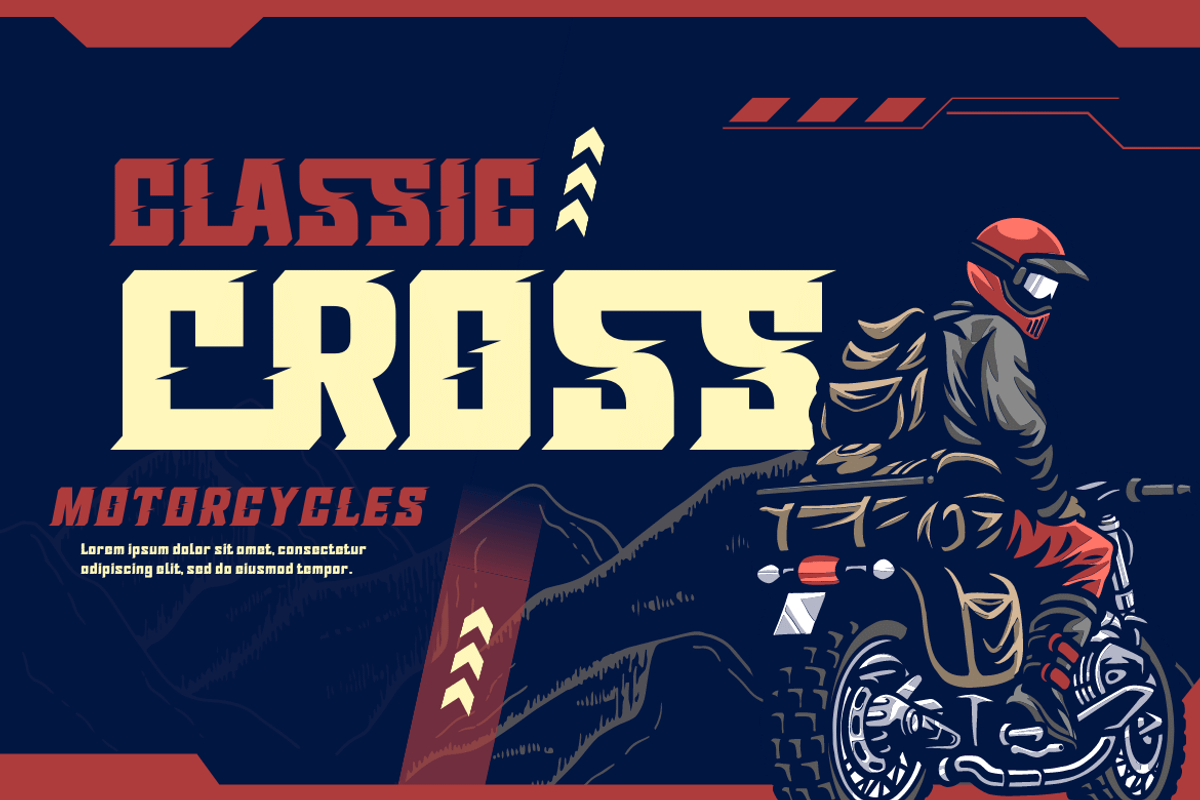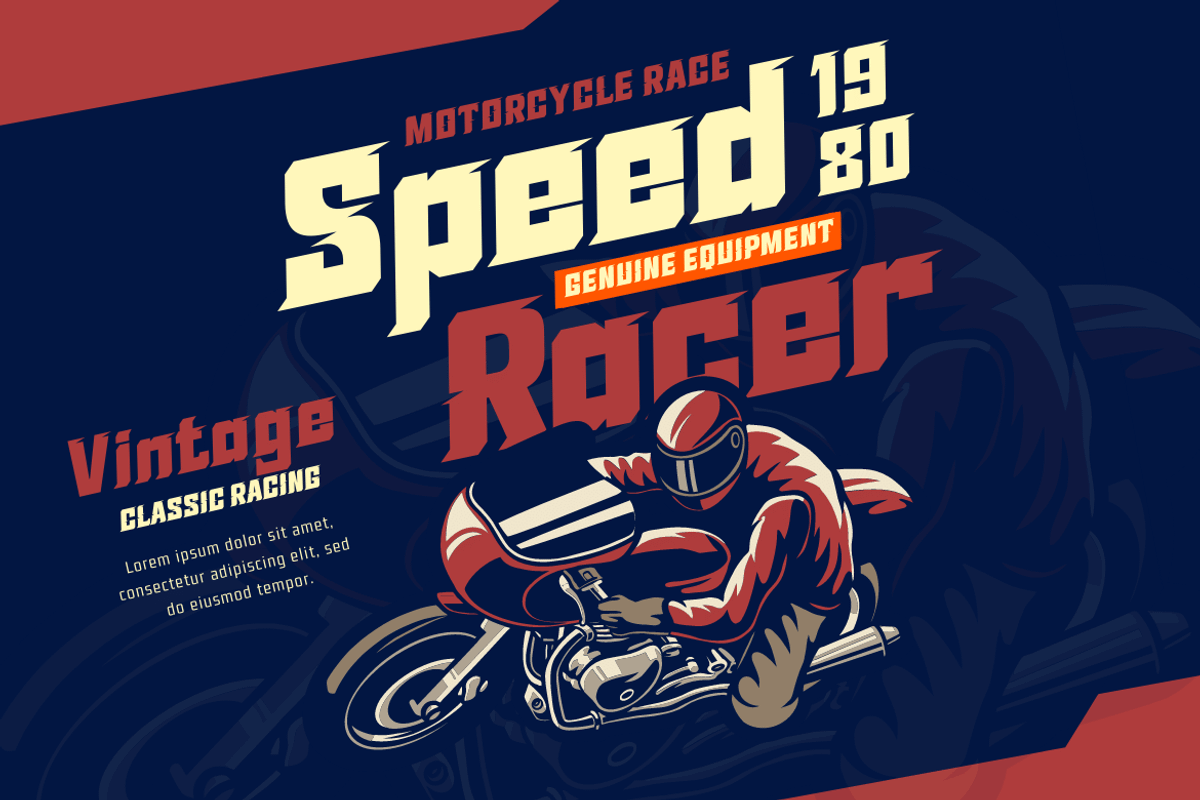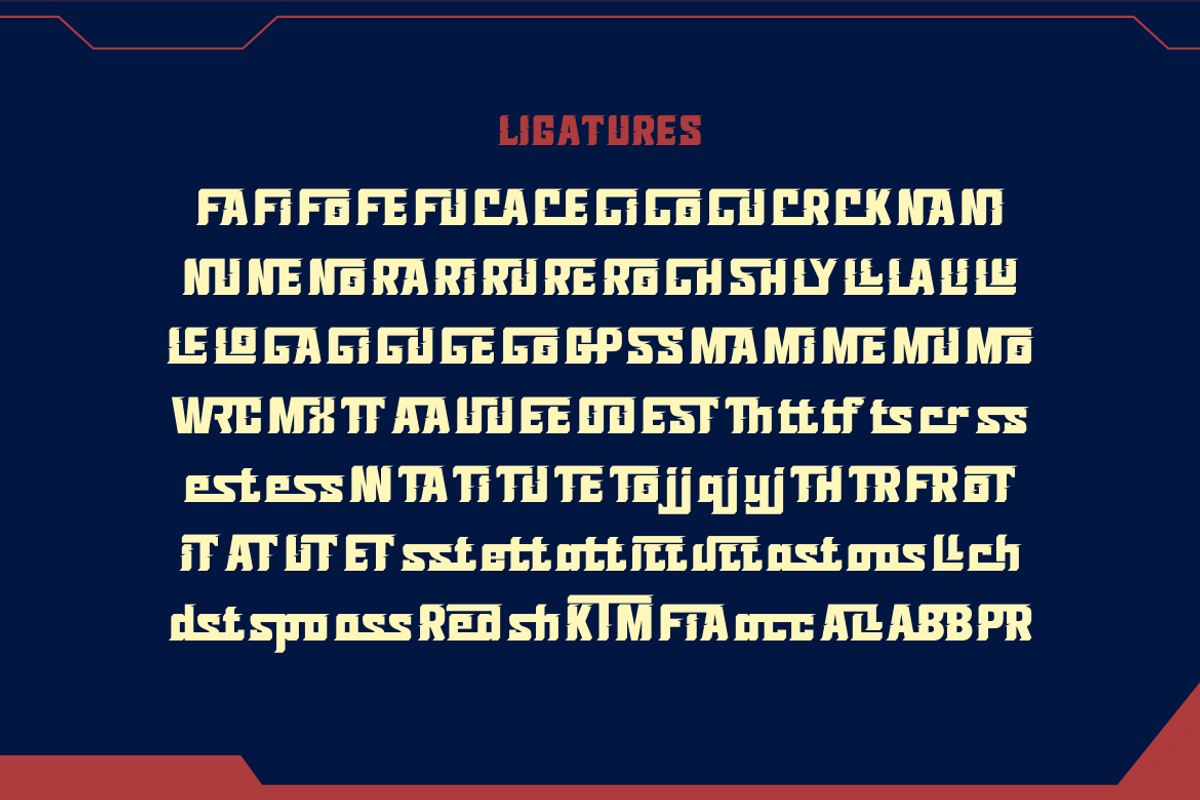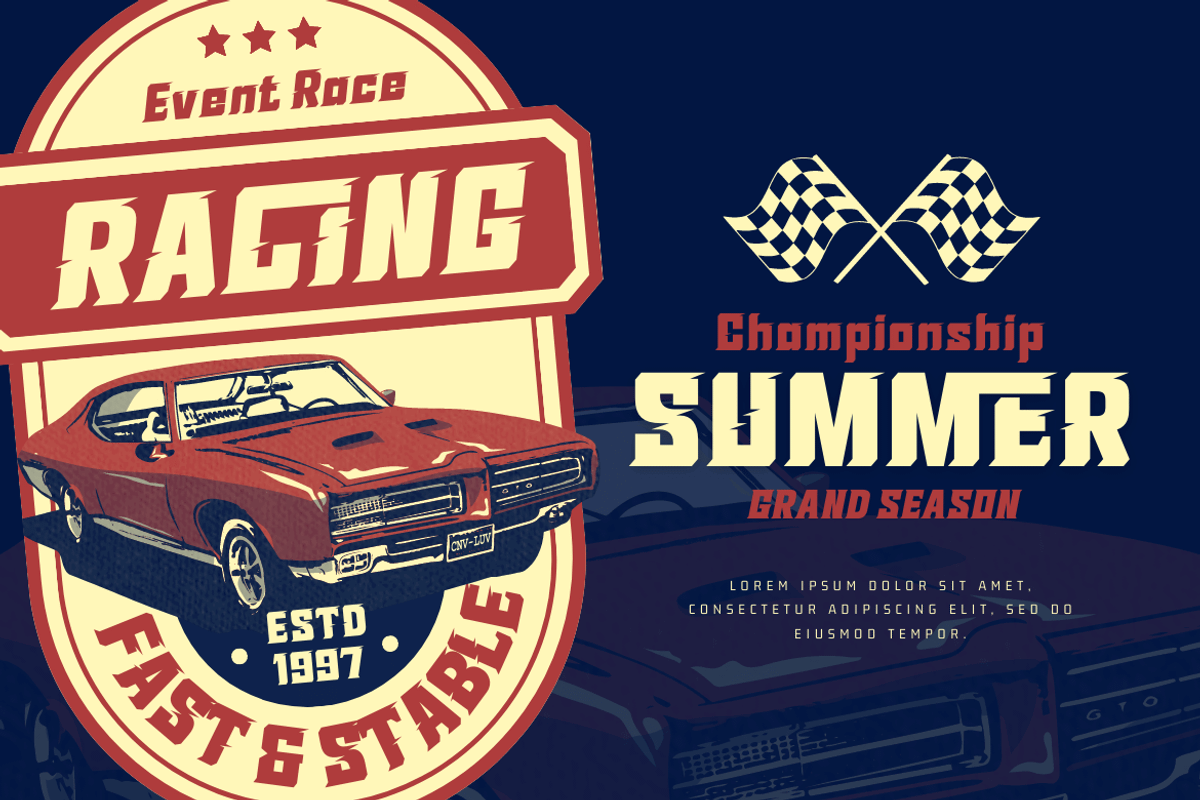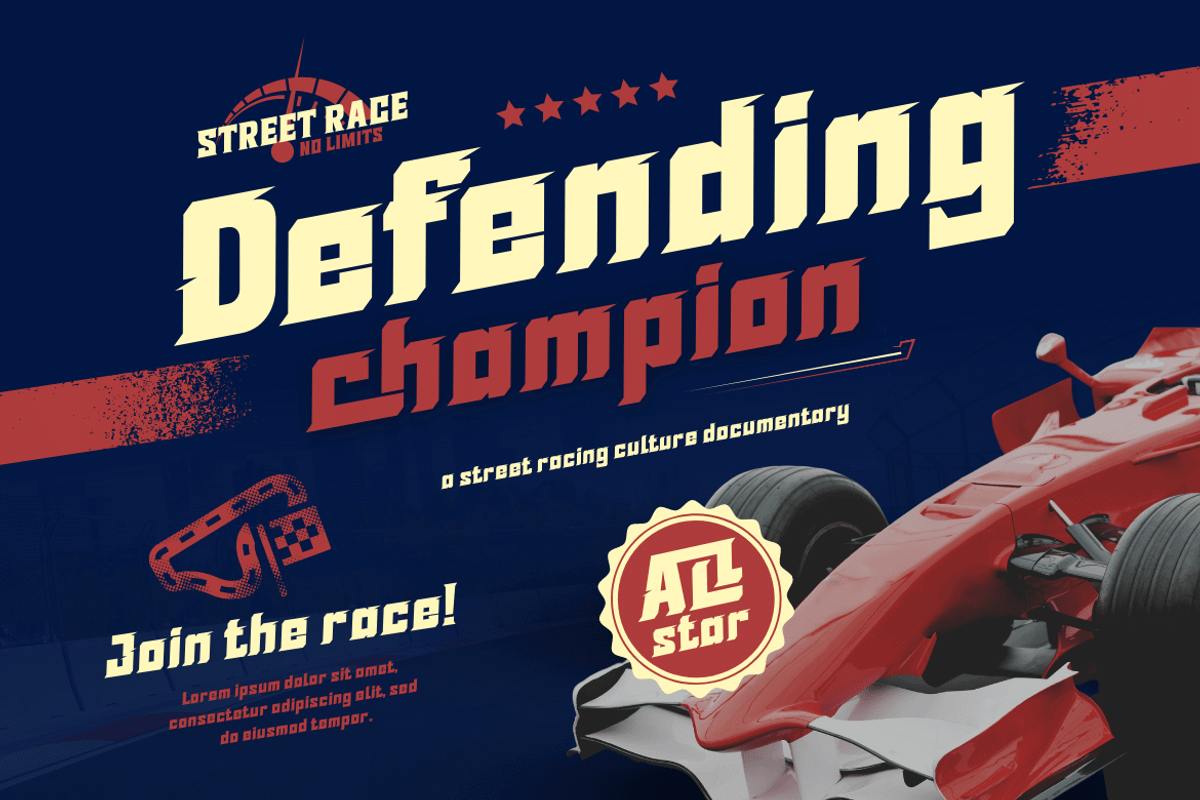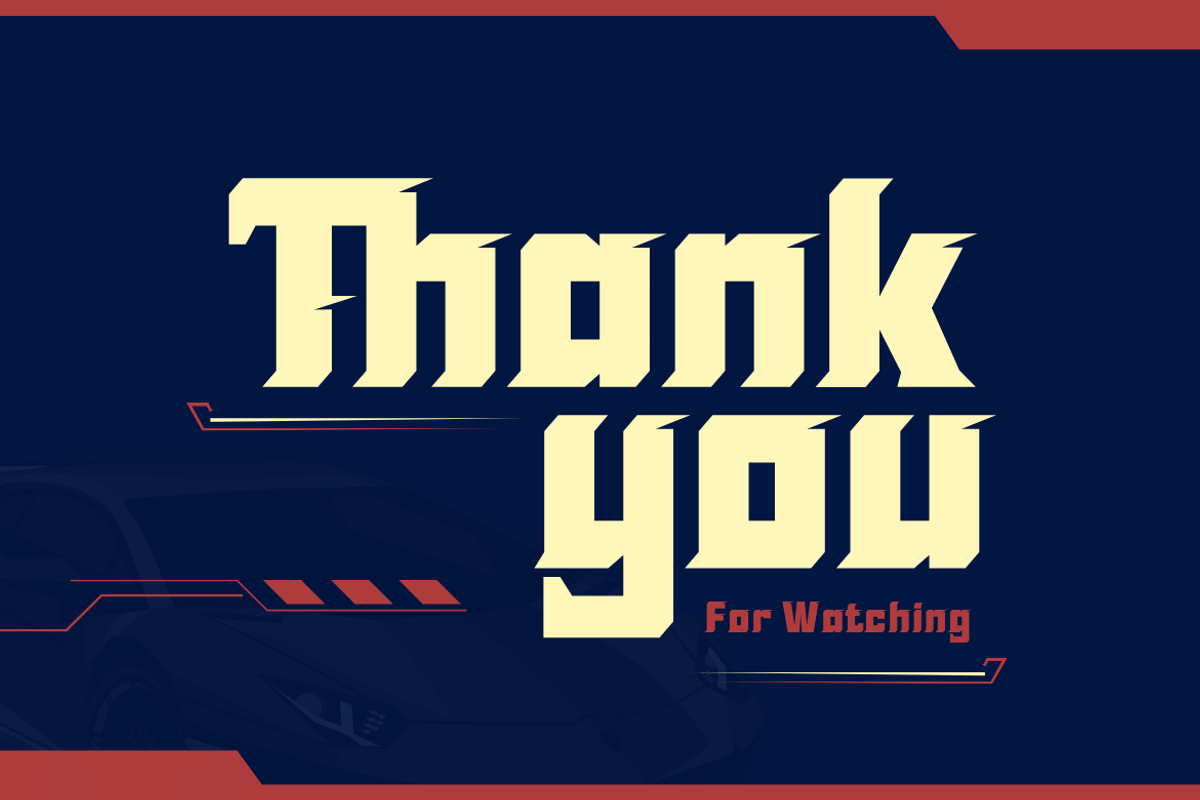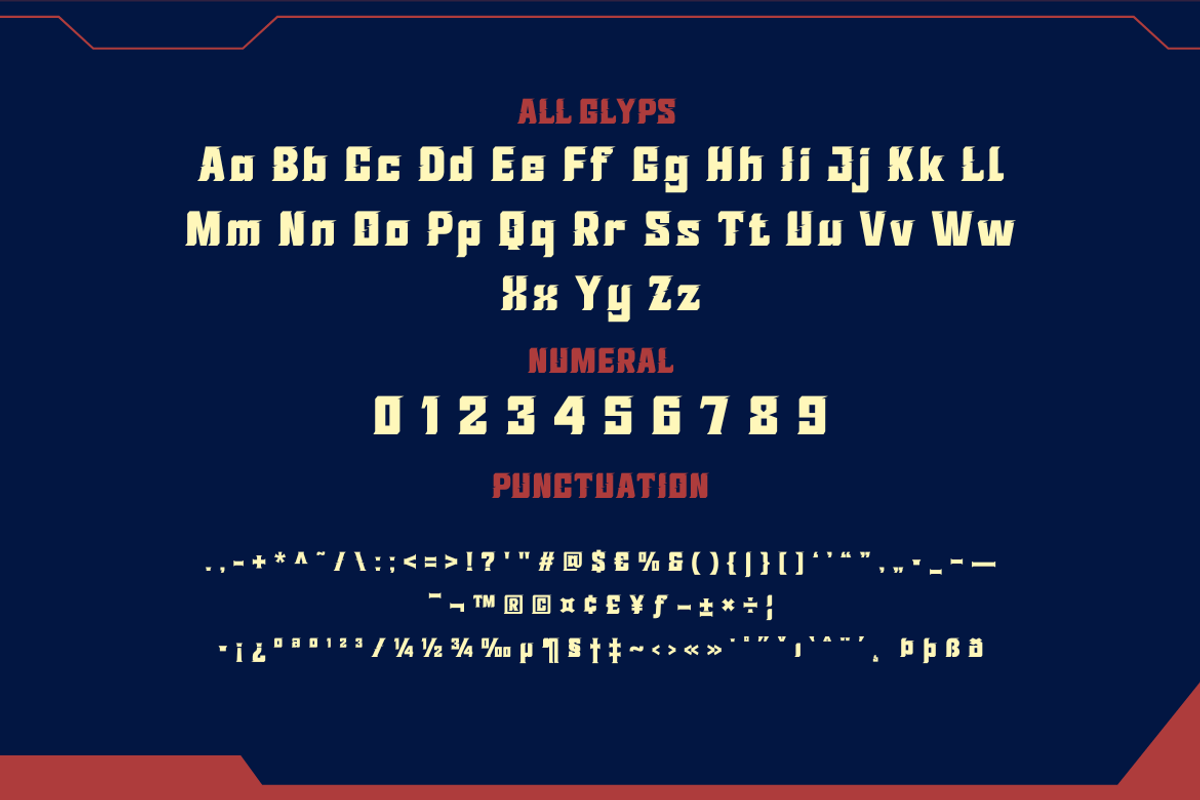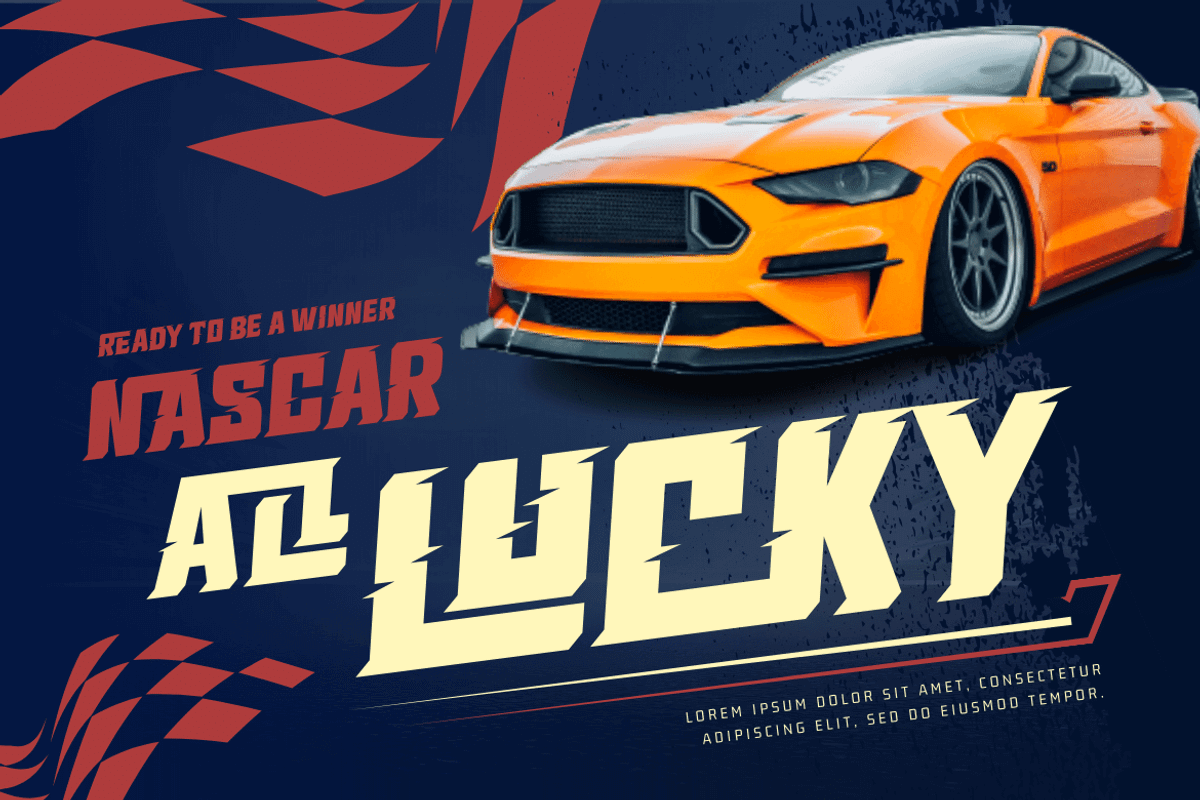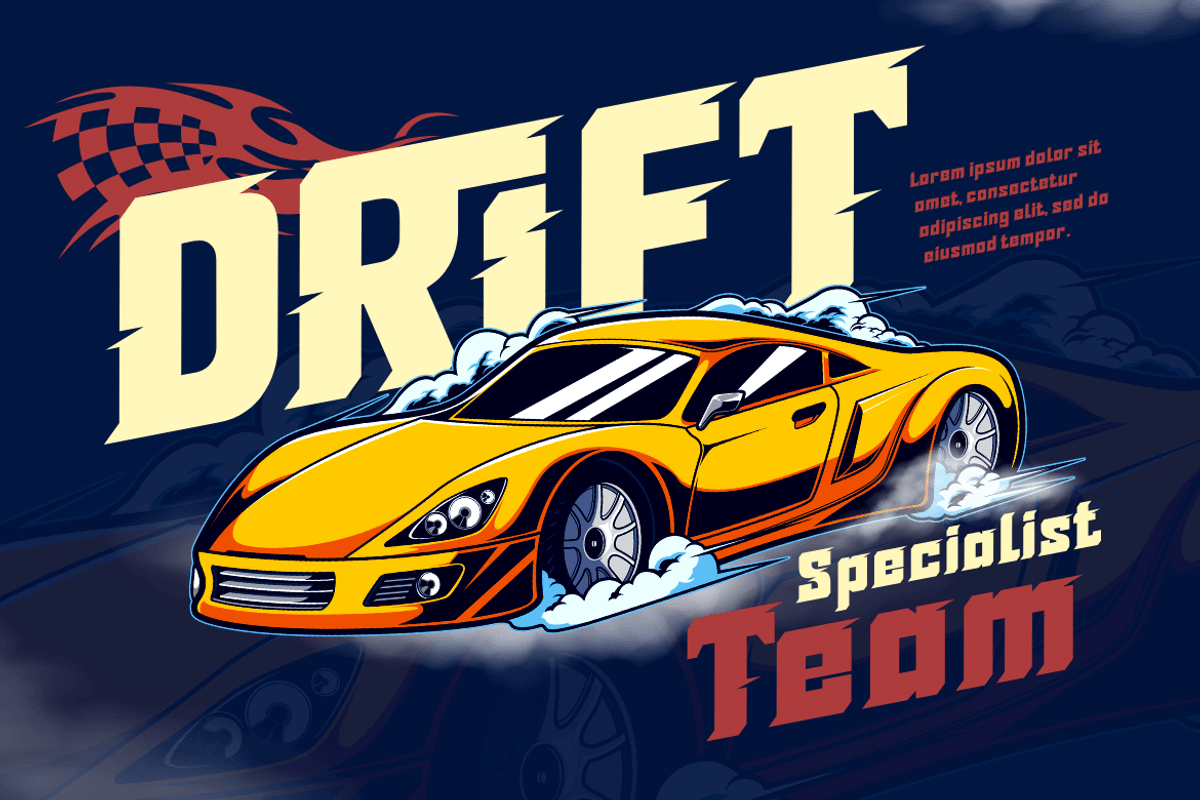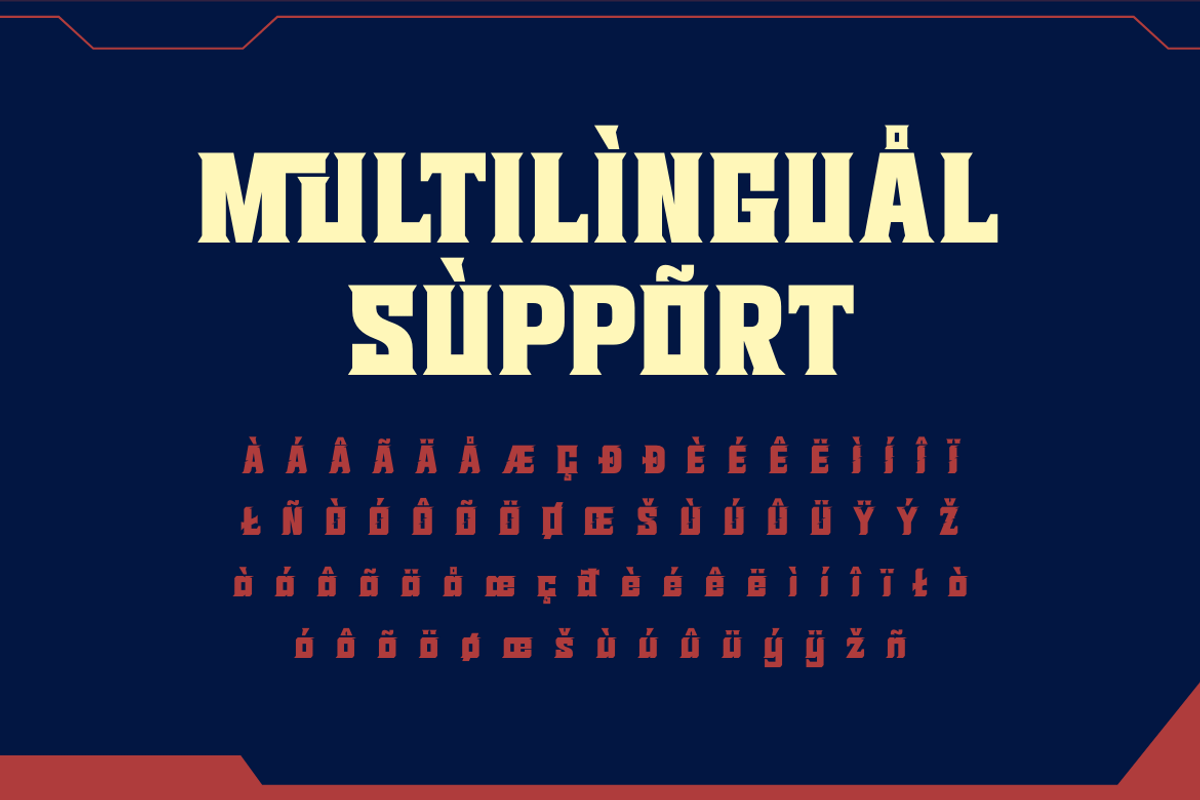
Sutixo | Athletic Font
Sutixo is the font for speed enthusiasts. Designed with the sports racing theme in mind, this font is perfect for creating bold and attention-grabbing designs. It comes with four variations, each with its own distinct style, and various alternate characters and ligatures to take your plans to the next level. Whether you’re creating graphics for a motorsport event or simply want to add a touch of excitement to your branding, Sutixo is the font you need. So gear up and get ready to race with Sutixo!
- Alternate, Ligature